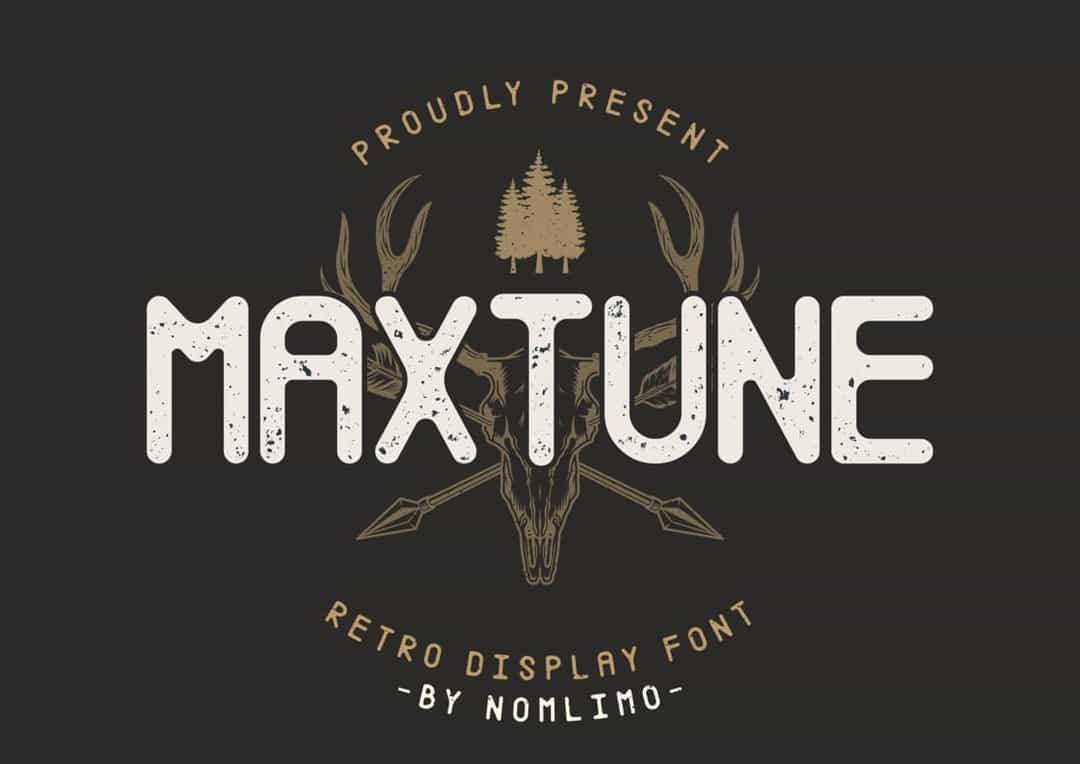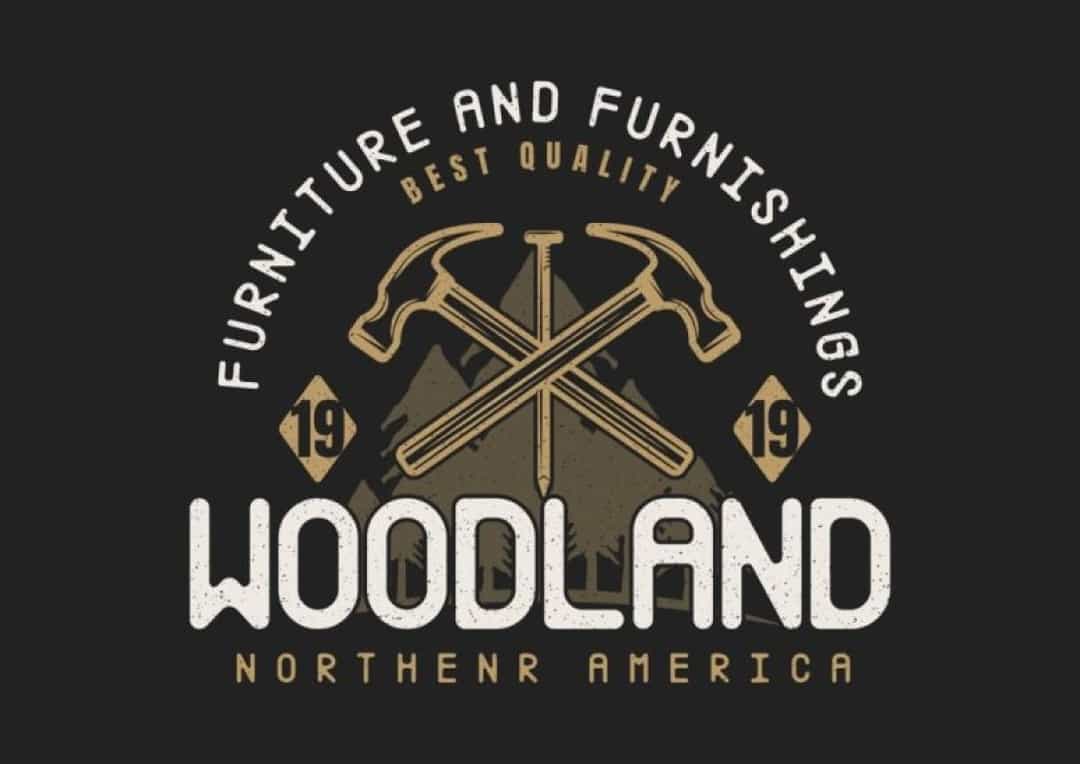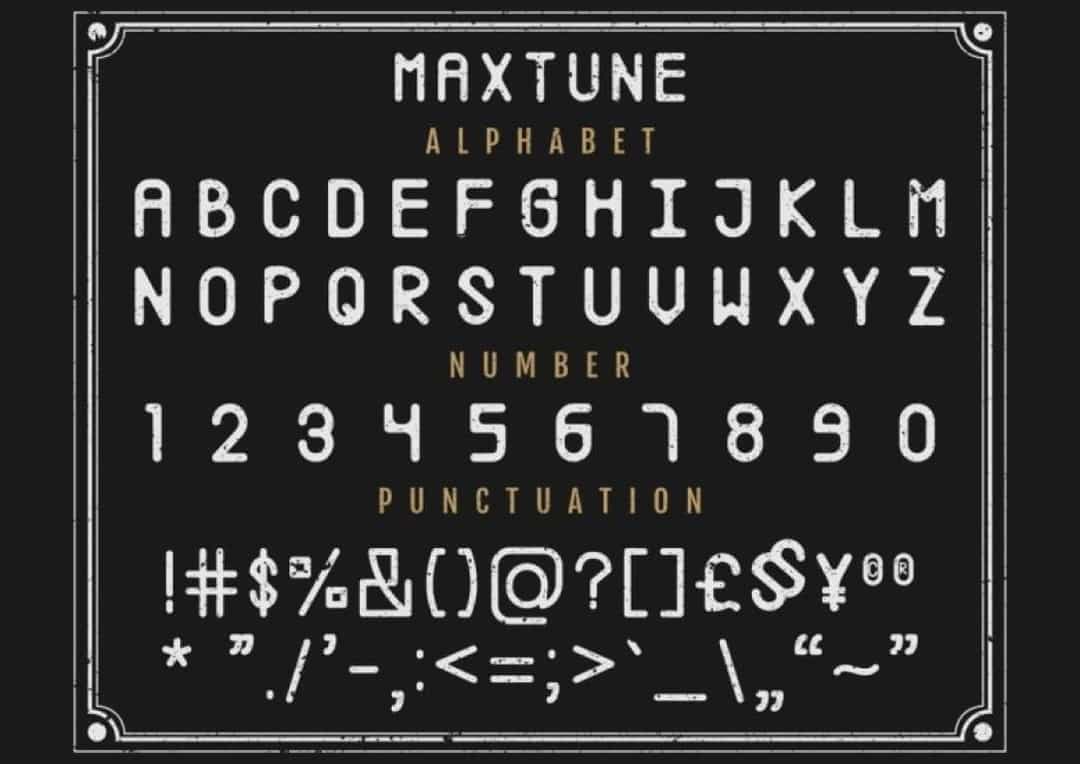
Maxtune font is a recent arrival on the market. A striking monoline font with vintage touches, Maxtune was specifically created for use in headlines, logos, signage and formal forms such as invitations books magazines etc.